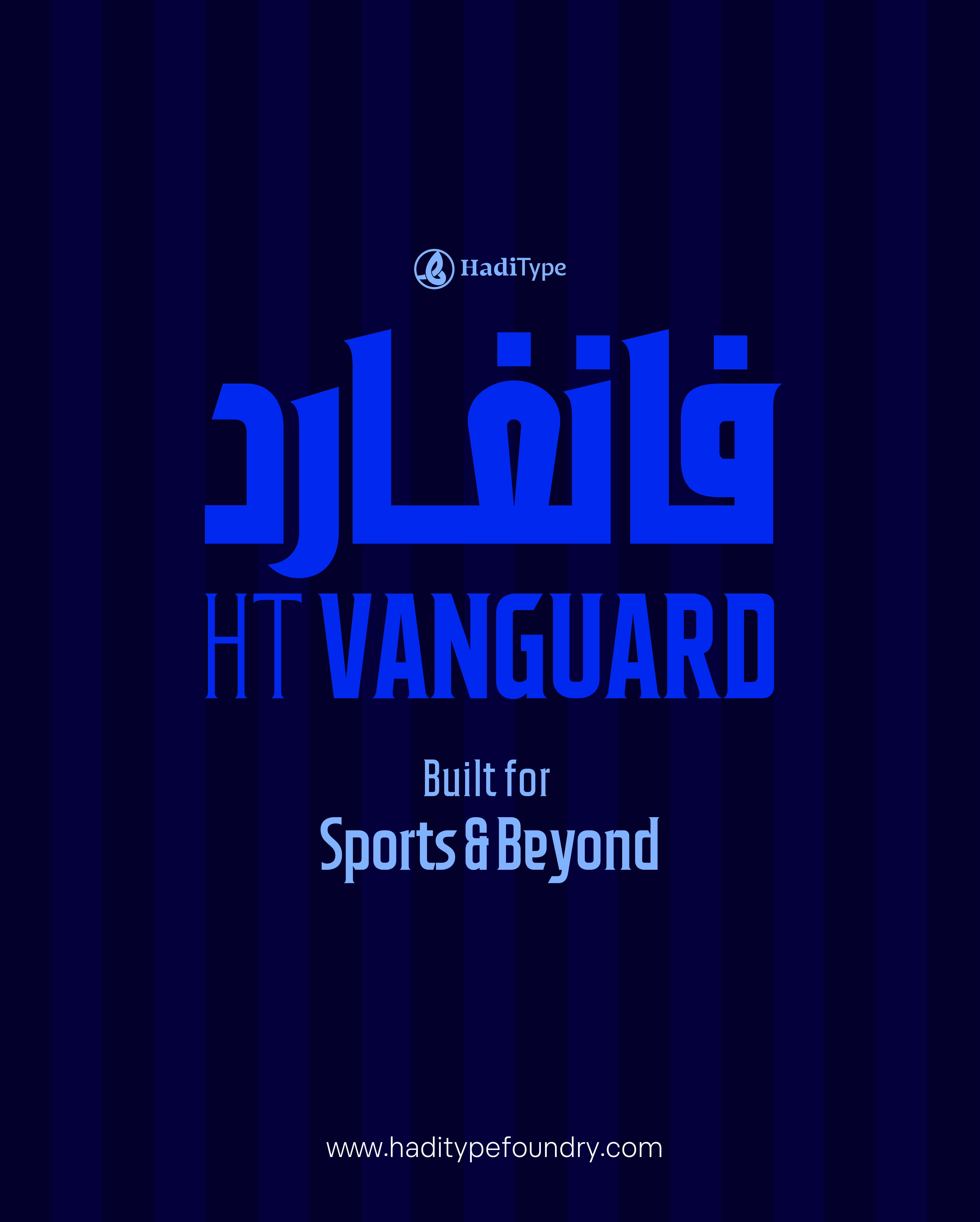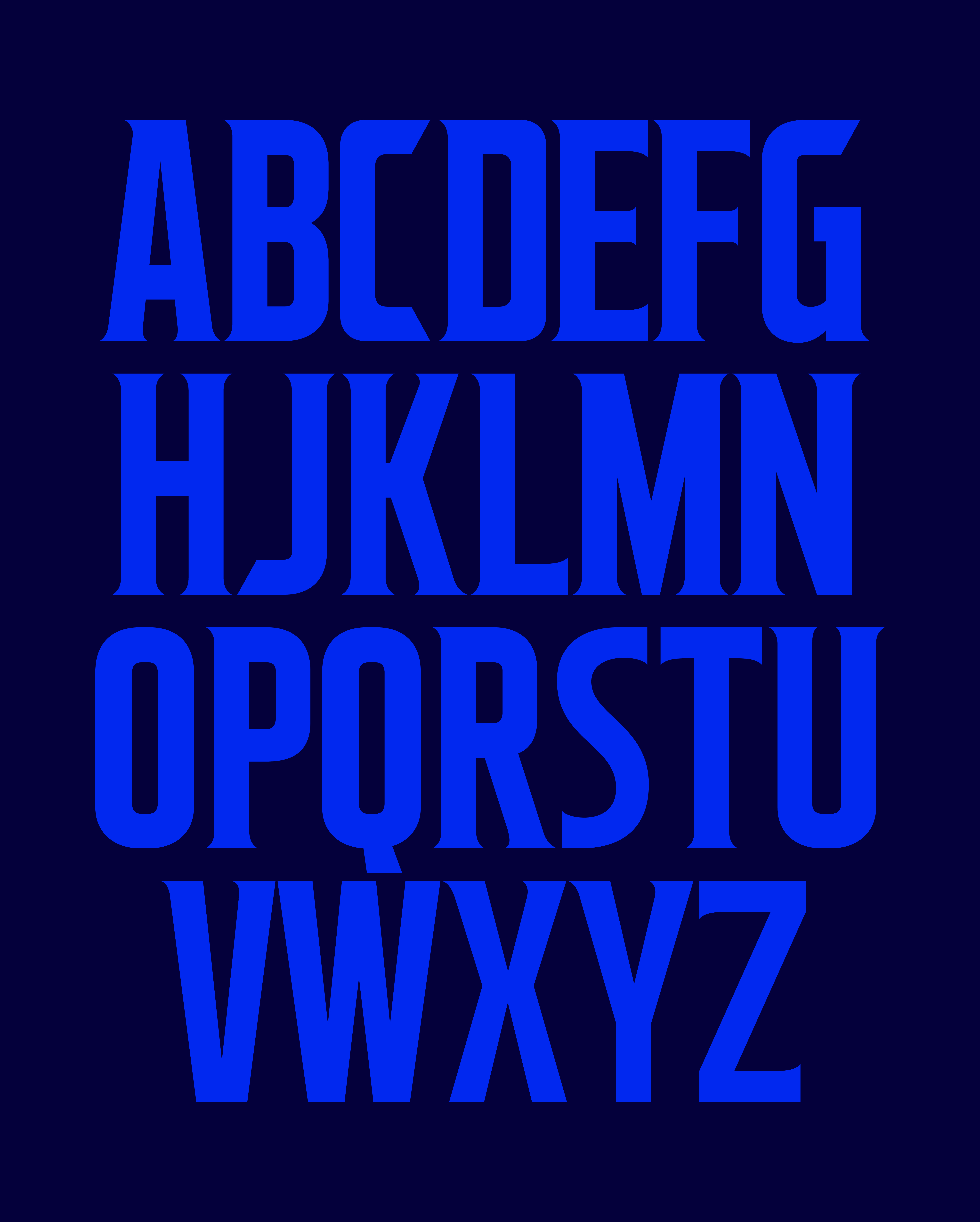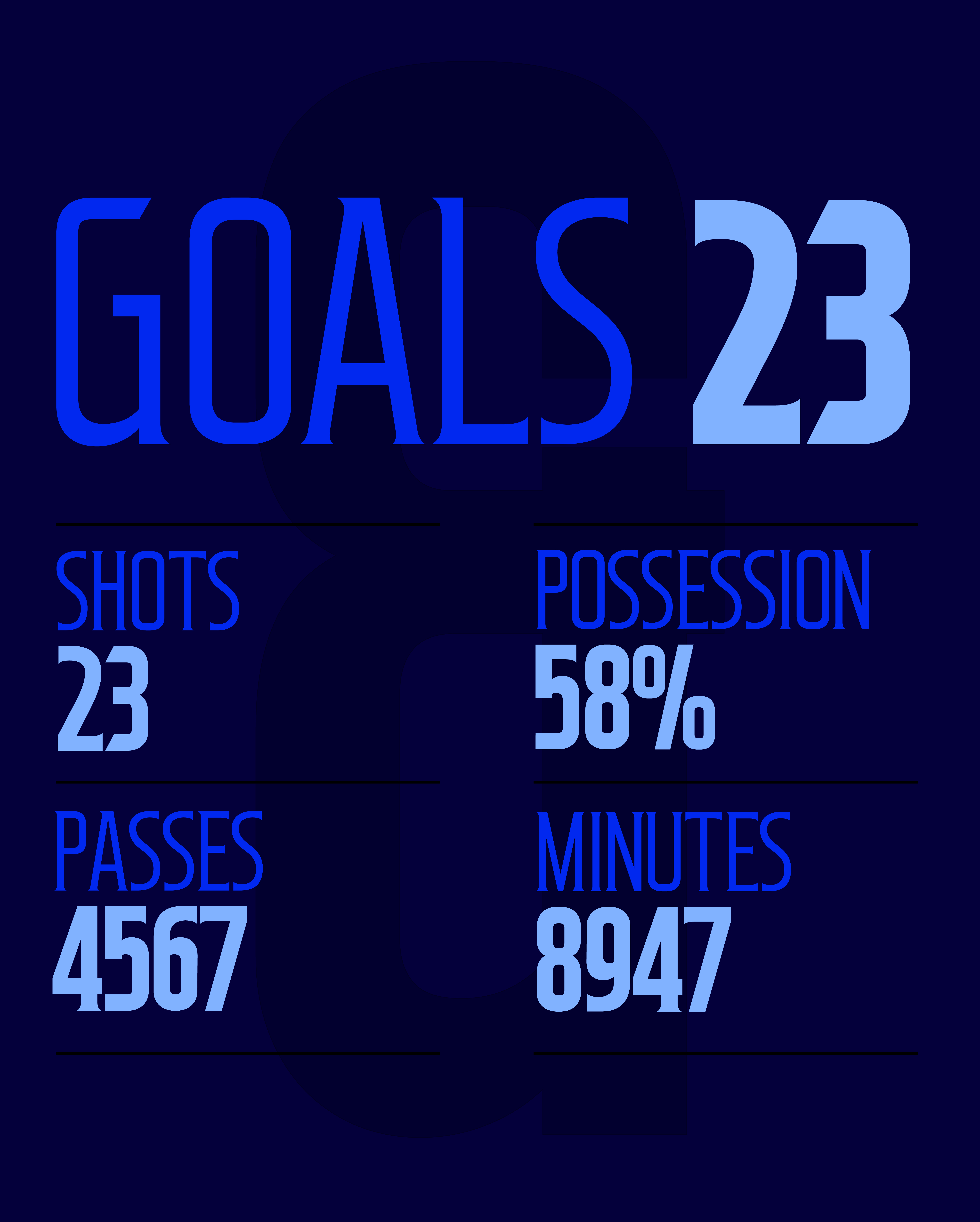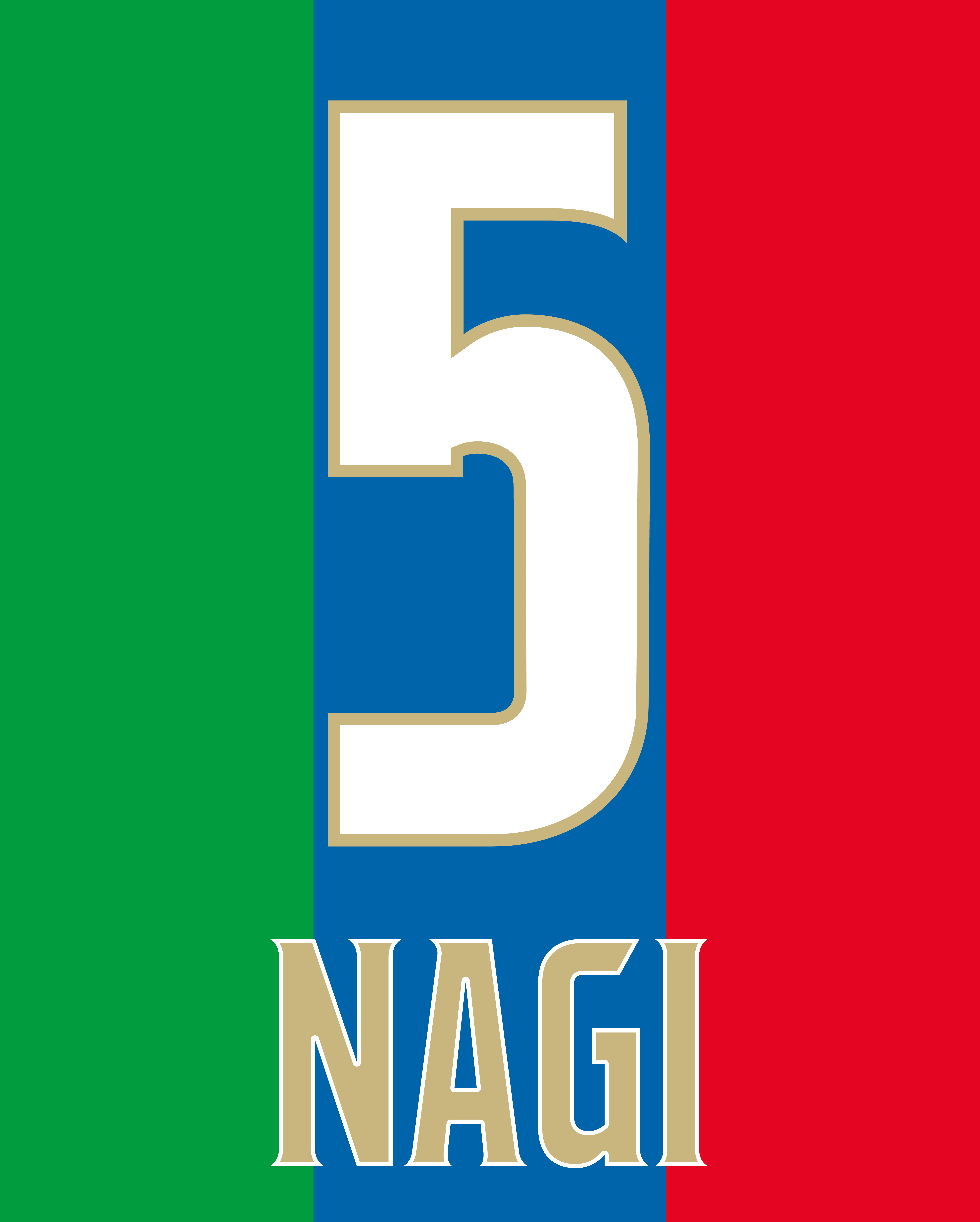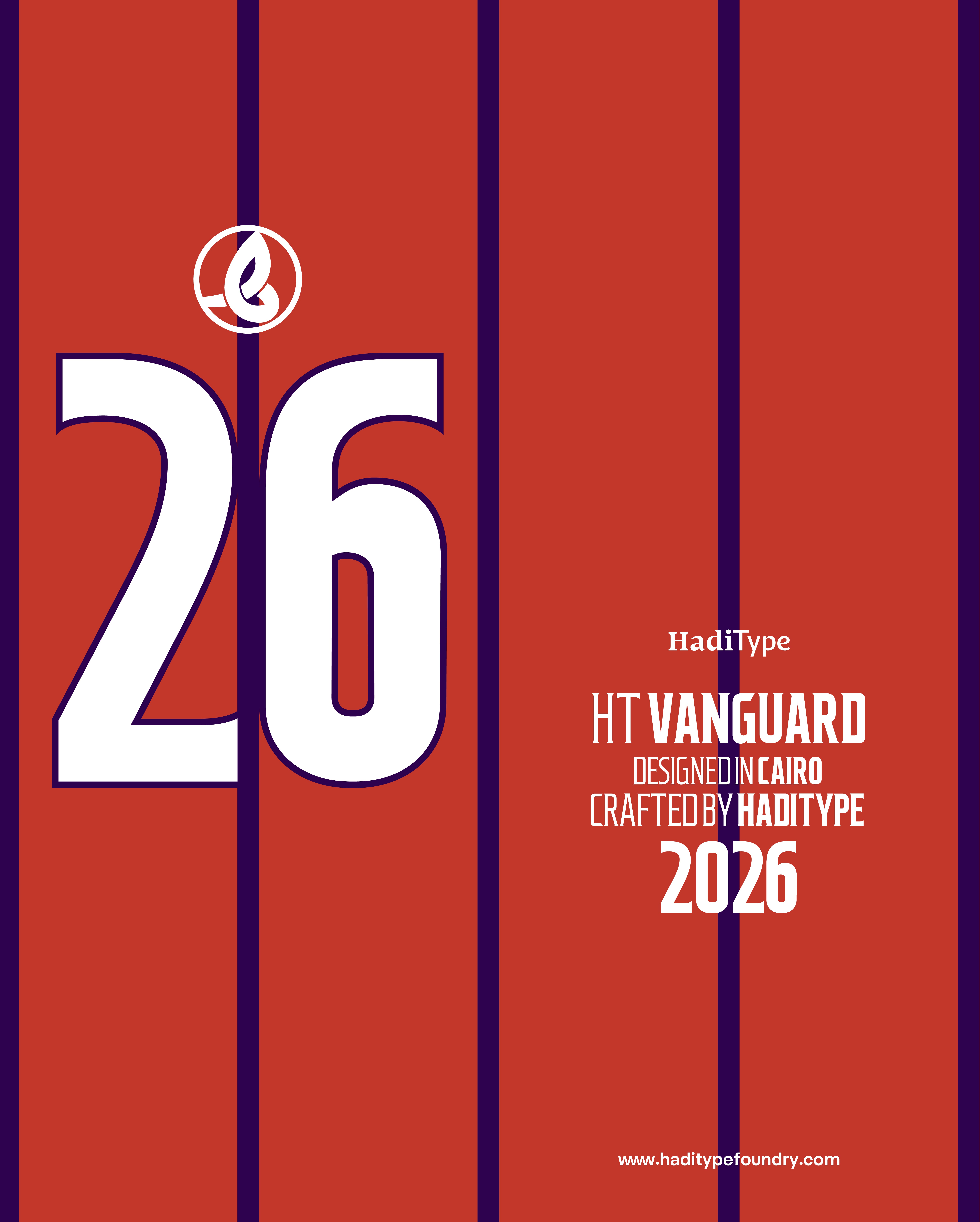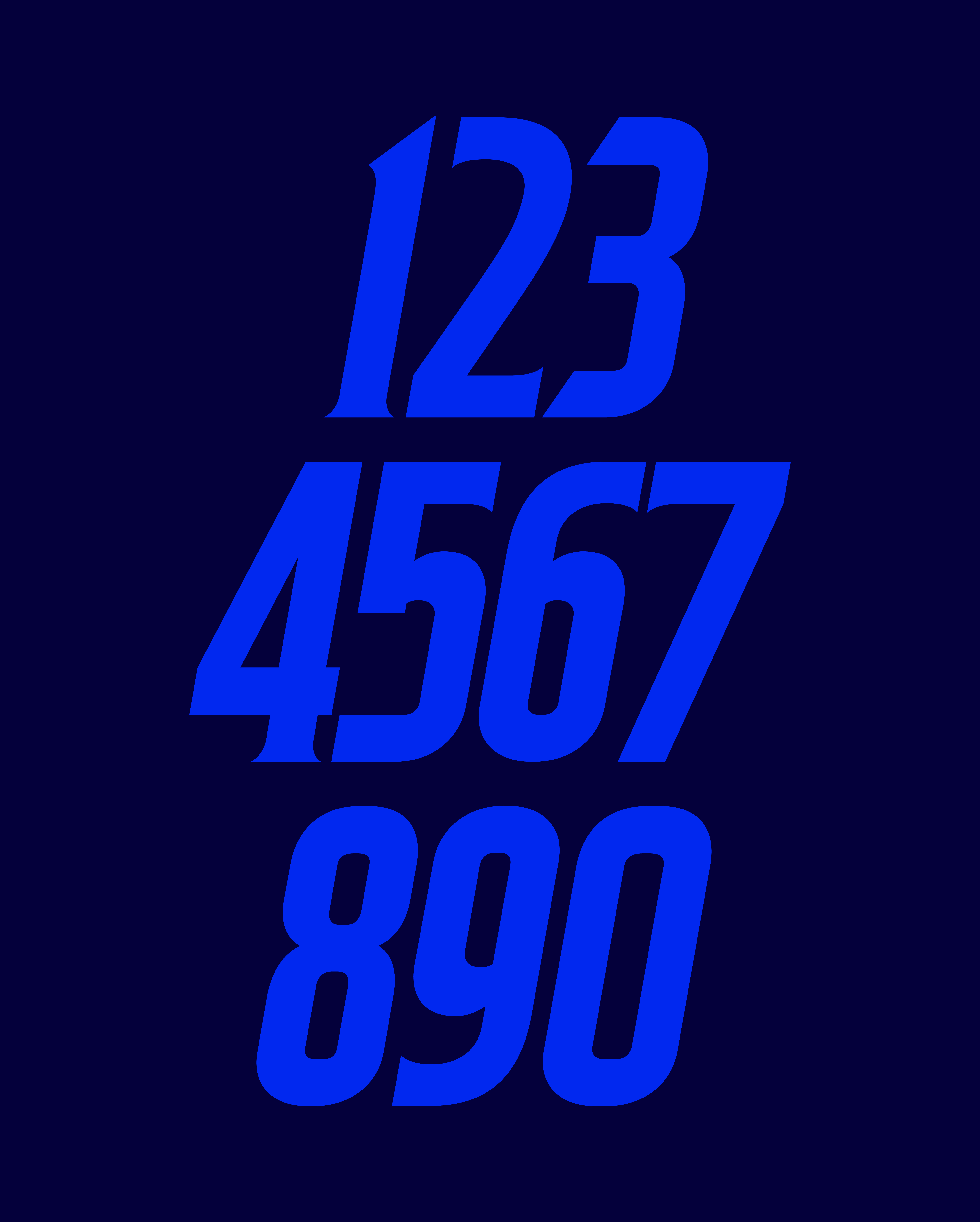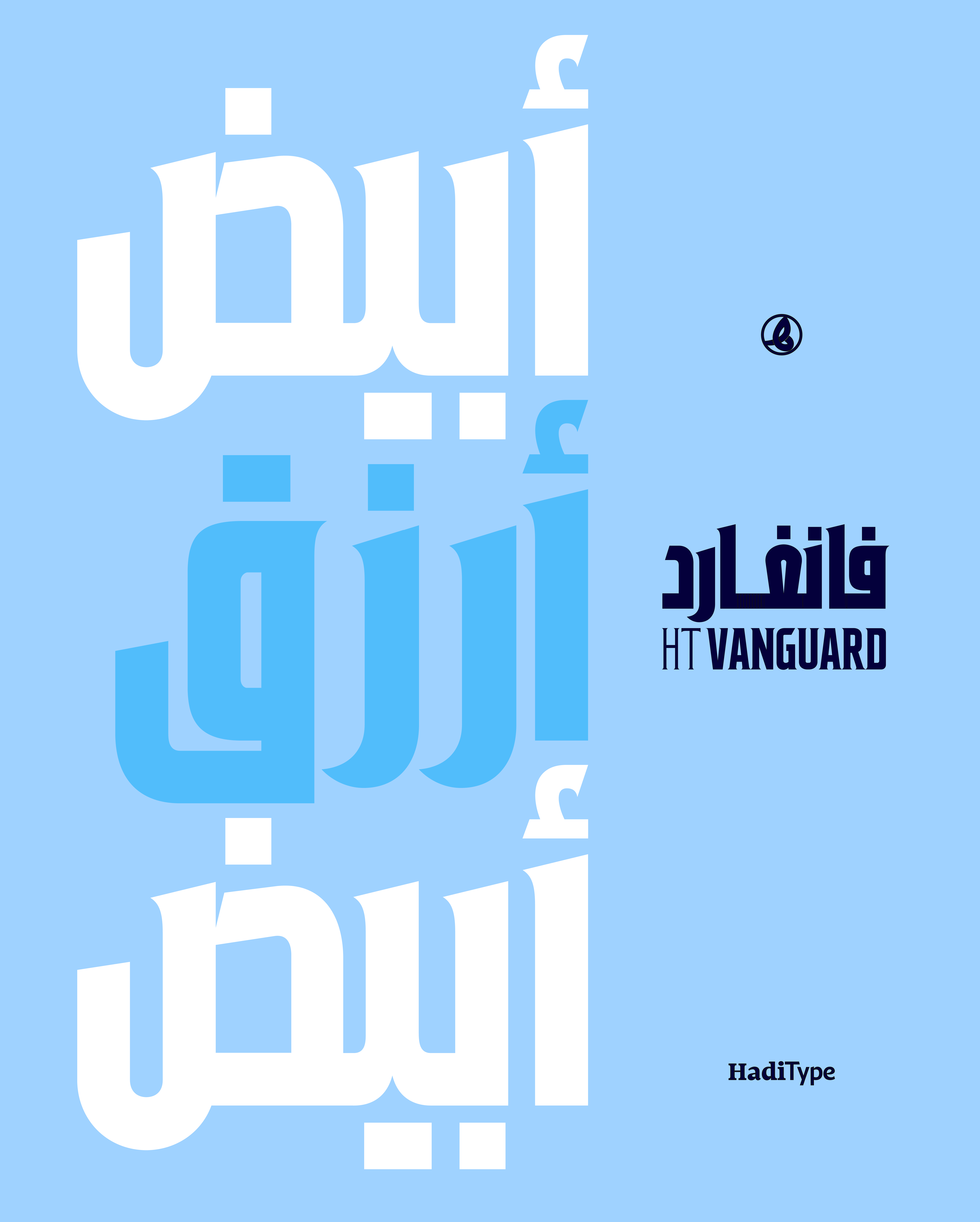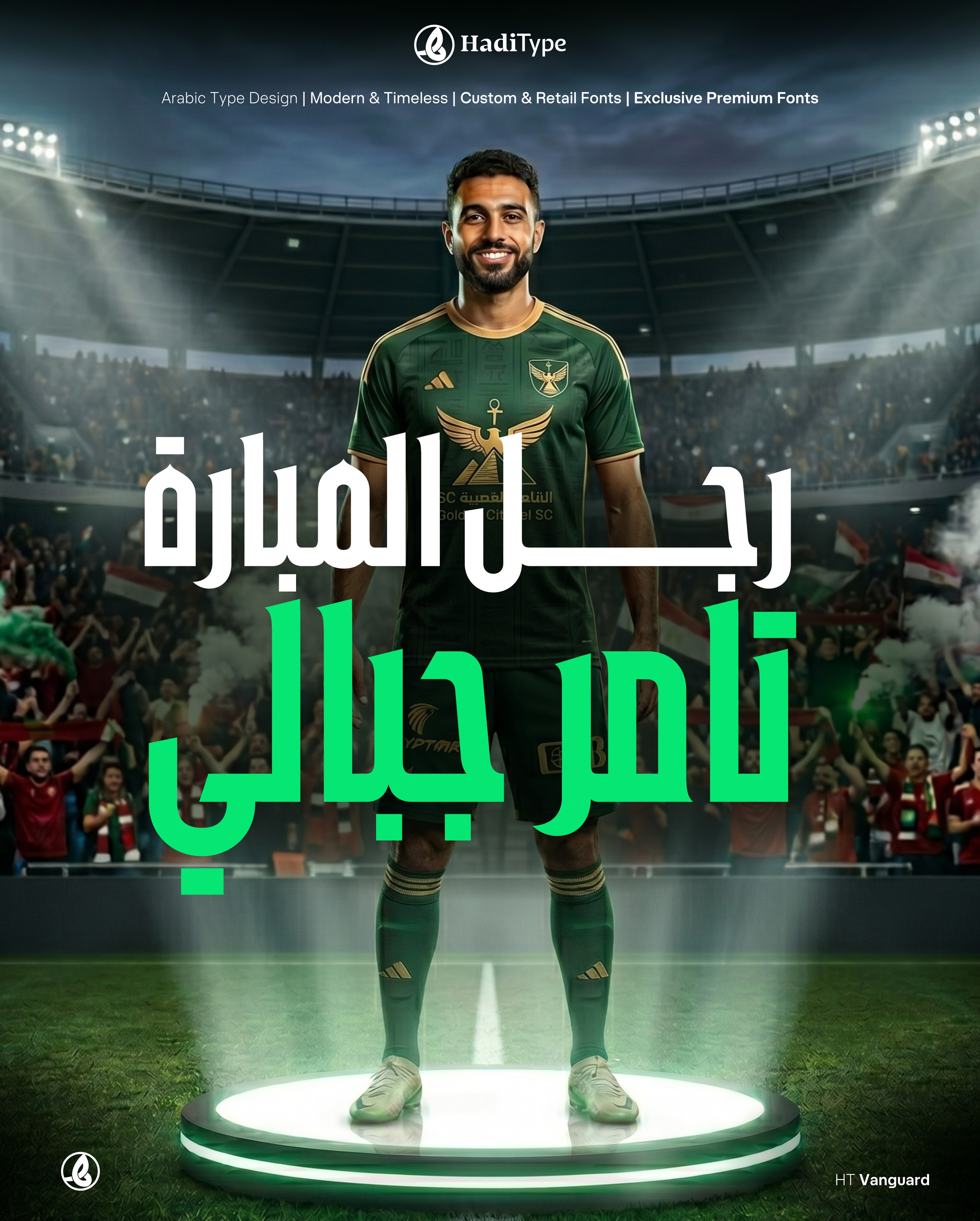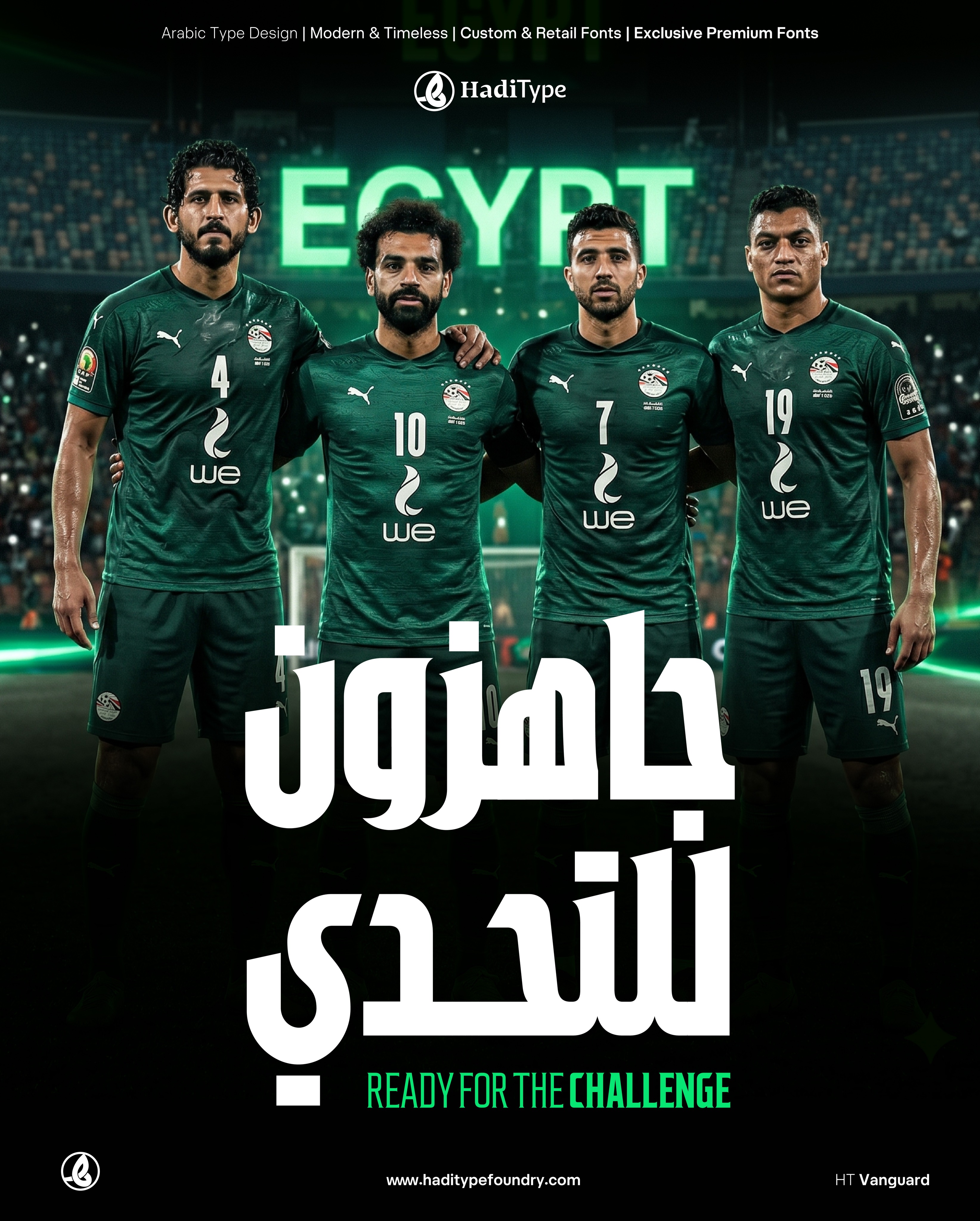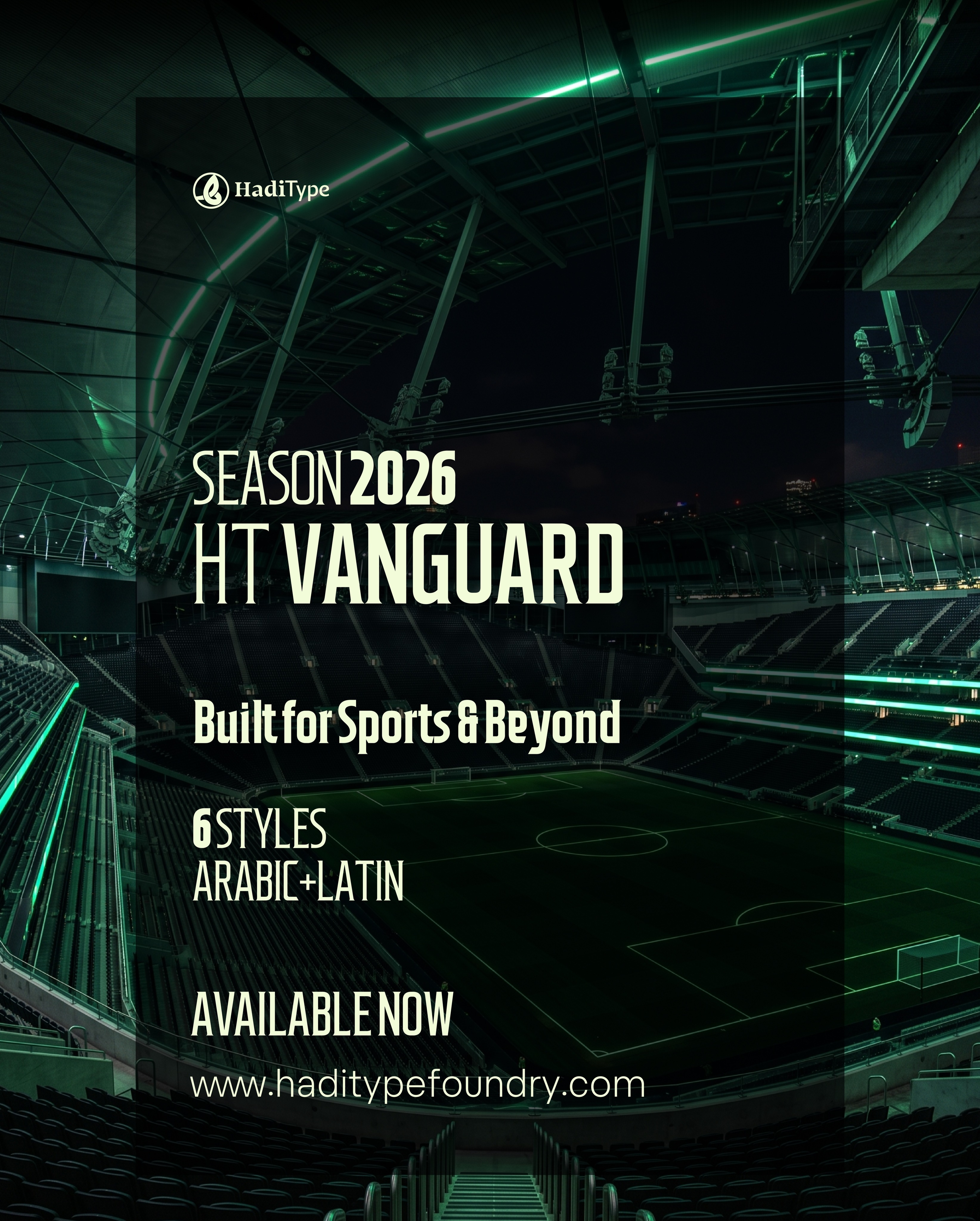
HT Vanguard
HT Vanguard is a bilingual Arabic and Latin display typeface designed for sports, branding, esports, events, campaigns, merchandise, and high-impact visual communication.
Inspired by the energy of competition and the bold presence of modern sports identities, Vanguard combines strong geometric structures with distinctive details that perform equally well across headlines, jerseys, numbers, match graphics, social media content, posters, and brand campaigns.
The family includes six styles and extensive support for Arabic and Latin scripts, making it suitable for regional and international projects alike.
Whether used for football clubs, esports teams, tournaments, apparel, packaging, or contemporary branding systems, HT Vanguard delivers confidence, clarity, and visual authority.